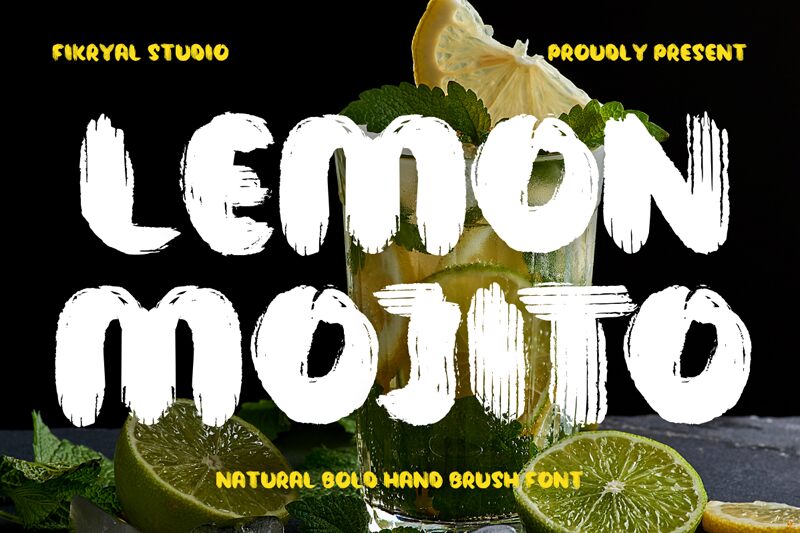
Lemon Mojito
Lemon Mojito font by Fikryal studio is a free brush typeface that looks like it was slapped onto the page with a loaded, slightly dry paintbrush. Every letter is packed with tall, streaky textures that run vertically, giving words a juicy, pulpy feel—like ink dragged across rough paper. The forms are bold, rounded, and a little wild, so your text doesn’t just sit there; it shouts, splashes, and sticks in memory.
Using Lemon Mojito, you get instant handmade energy for drink labels, summer event posters, food-truck branding, social media promos, and bold packaging concepts. This free font shines when used big, where all those inky grooves and ridges can really show. Pair it with a clean, narrow sans serif for body copy to keep layouts readable while letting Lemon Mojito handle the loud, expressive headlines.